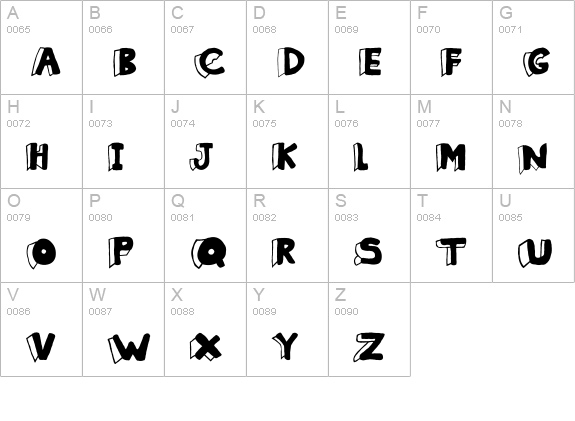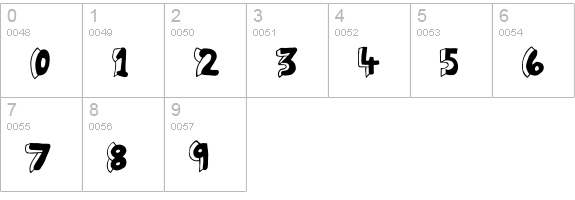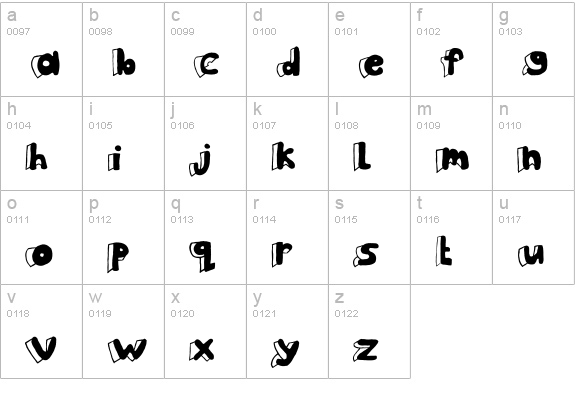
Clothes Peg font is a charming and playful typeface that exudes a sense of whimsy and creativity. Its rounded edges and unique design make it perfect for adding a touch of fun to your projects. The font is versatile and can be used for a variety of design purposes, from branding to invitations to social media graphics. And the best part? Clothes Peg font is completely free to download at FontsMarket.com! This means you can easily add this delightful font to your collection without spending a dime. So go ahead and give your designs a fresh and lively look with Clothes Peg font, available for free download now.